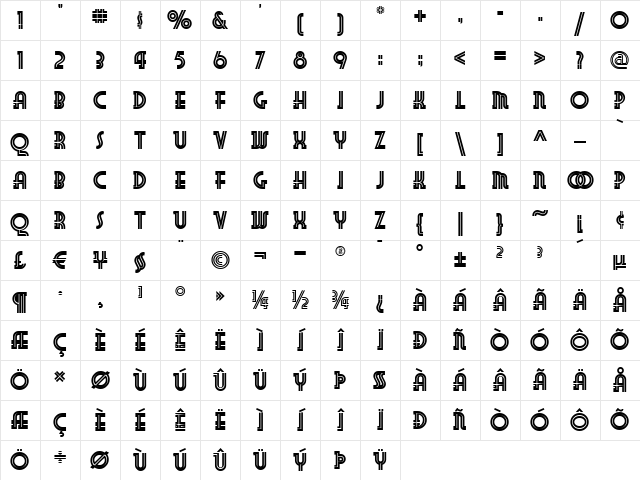
Foo Bar Inline NF Regular
Foundry: c) Nick Curtis
Designer: Nick Curtis
Design Context for Foo Bar Inline NF
Foo Bar Inline NF is built around its visual character rather than neutral utility - its distinctive forms are designed to make an impression at display sizes.
Font Pairing: Pair with a clean neutral sans-serif for body copy to let Foo Bar Inline NF's character lead without overwhelming the composition.
Pro Tip: Use Foo Bar Inline NF exclusively at display sizes - it was designed to be seen, not read at length. Let a neutral companion handle body copy.
Who designed the Foo Bar Inline NF Regular font?
This font was published by c) Nick Curtis. Check the technical specs section for copyright and designer details.